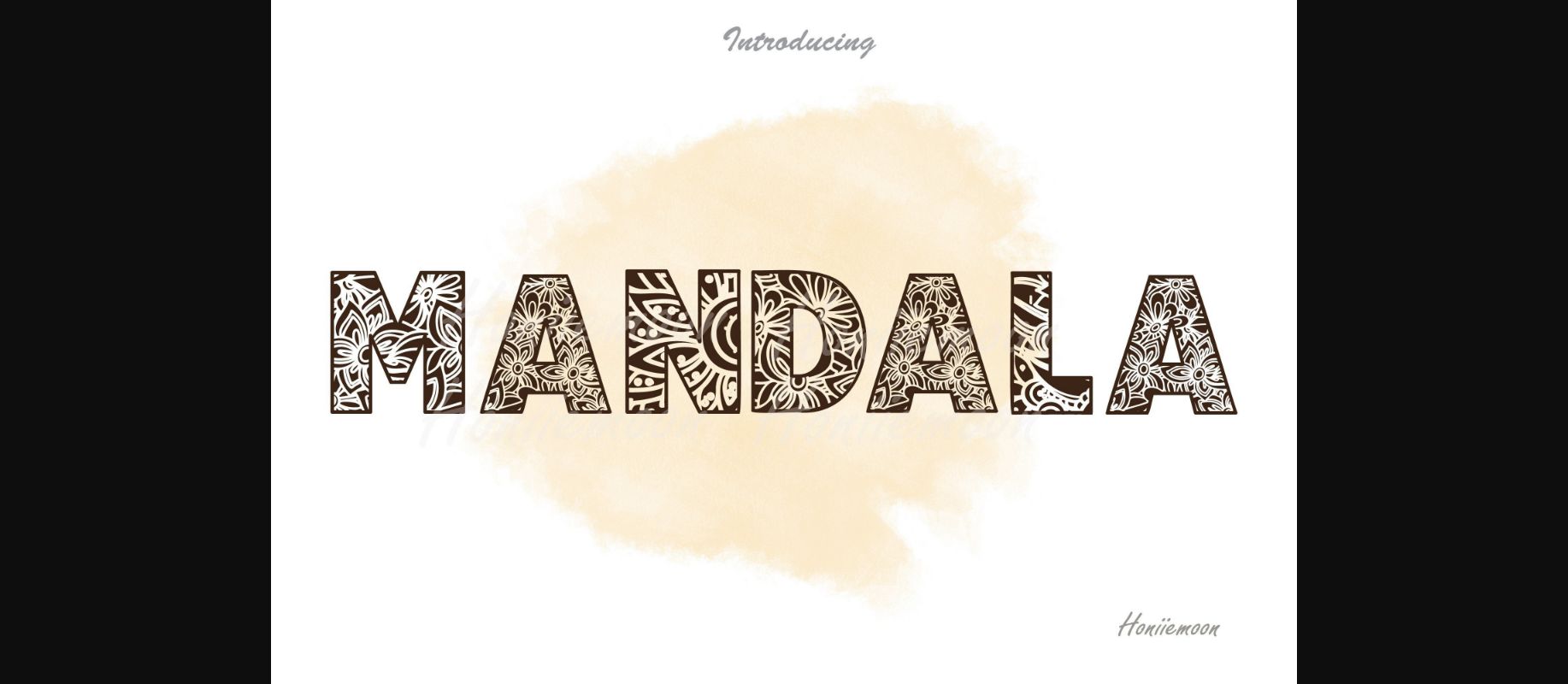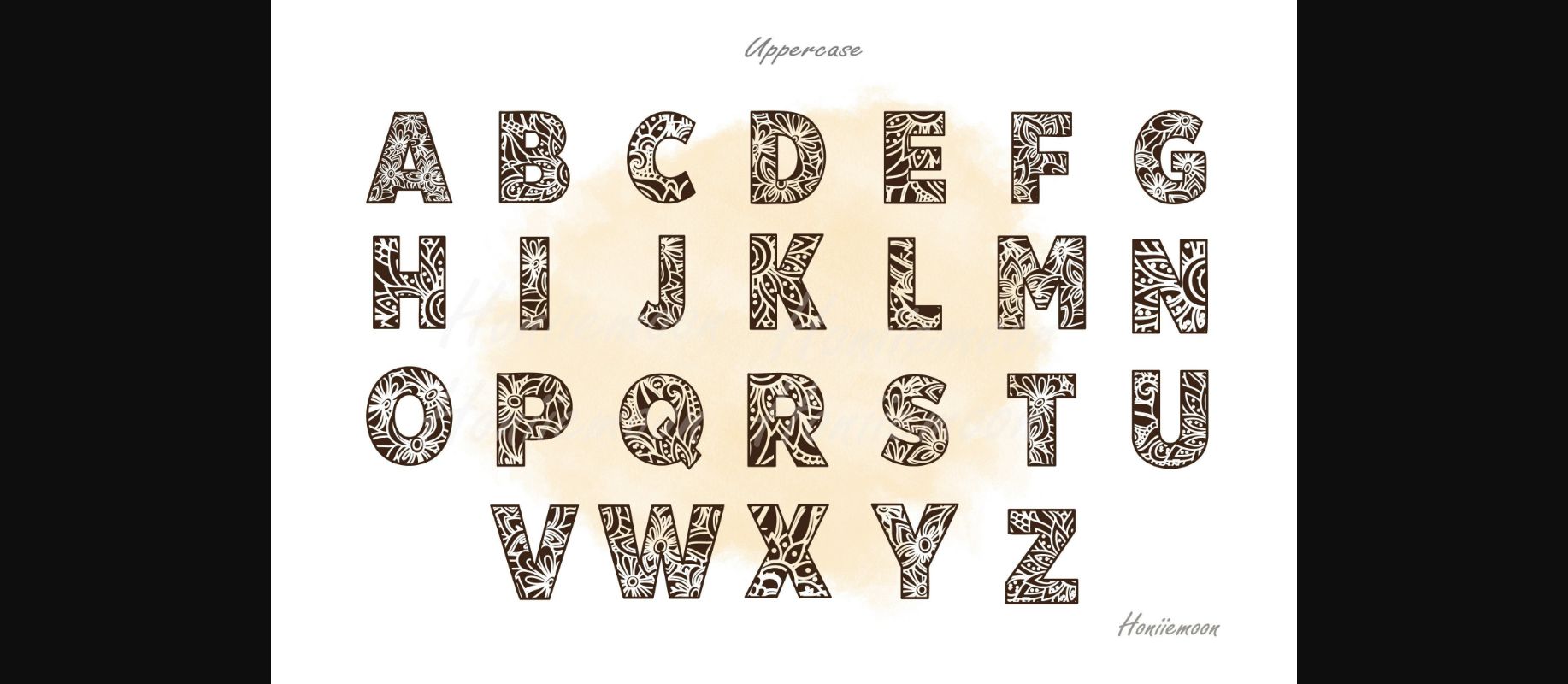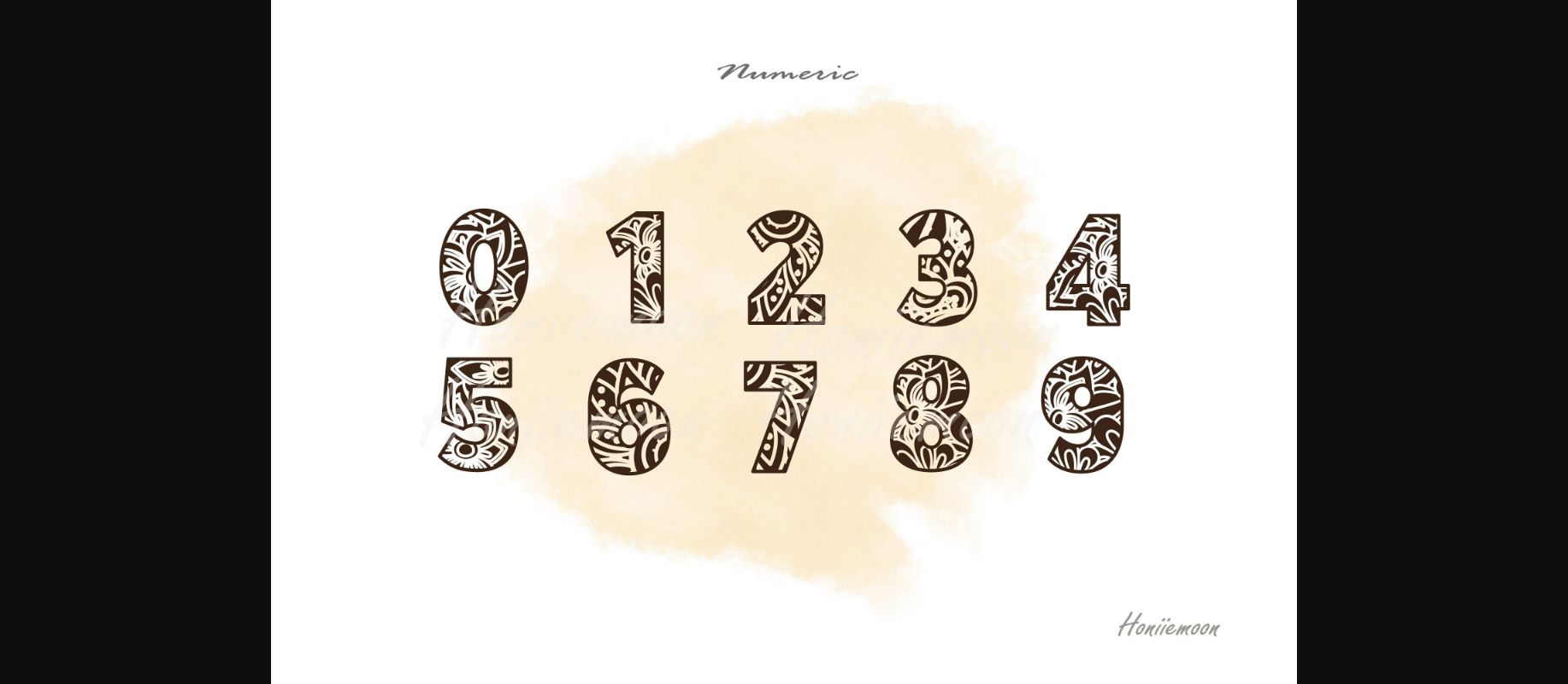
Mandala Font
About Mandala Font
Mandala is a cool and fun decorative font. Cute and jolly, it will enhance the aspect of each of your designs. Add it to your creative projects, and notice how it makes them come alive!